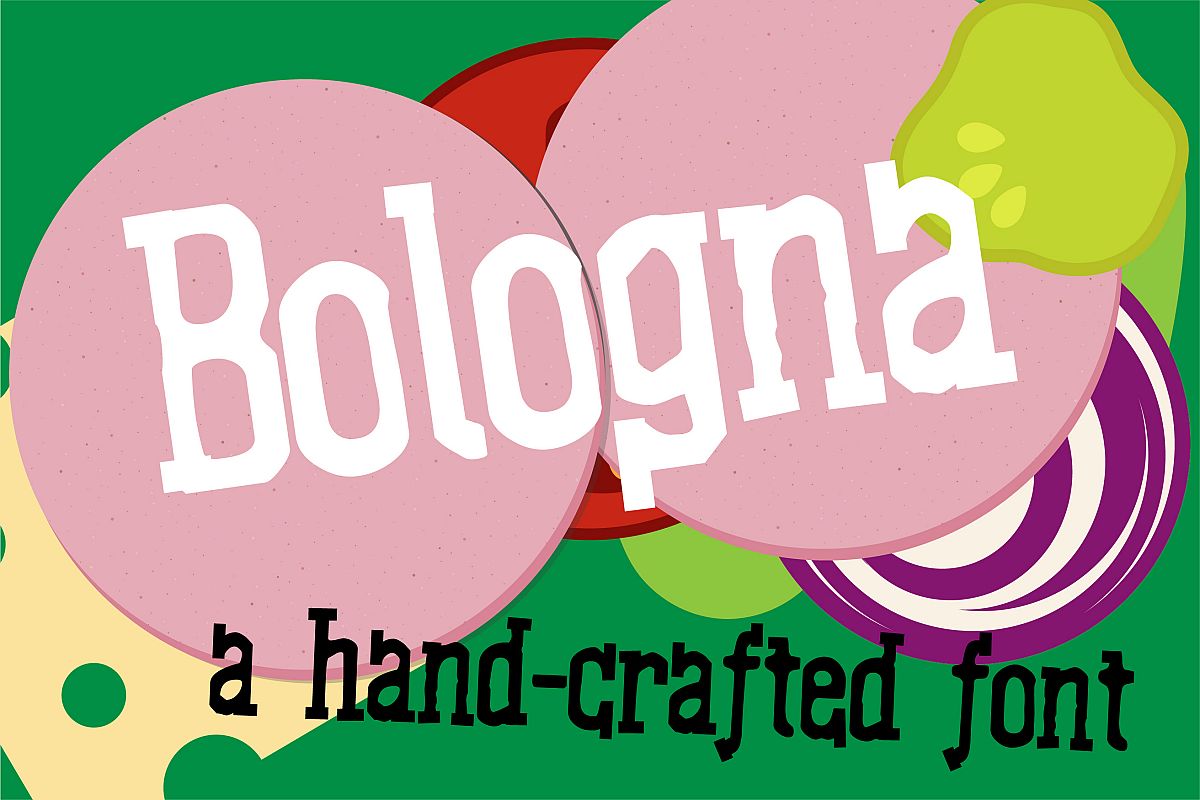
PN Bologna
This chunky sans-serif font is a hand-crafted font with a lot of textures.  Bold version included.
• Numbers and Symbols
• International Characters